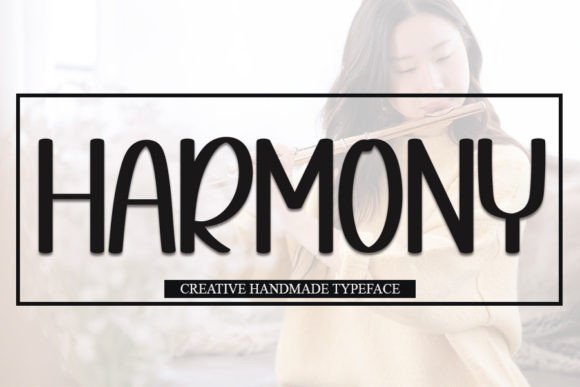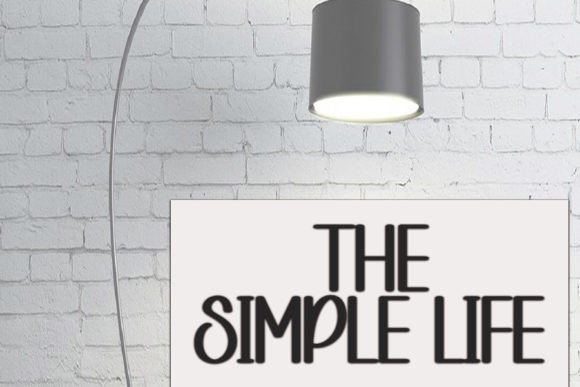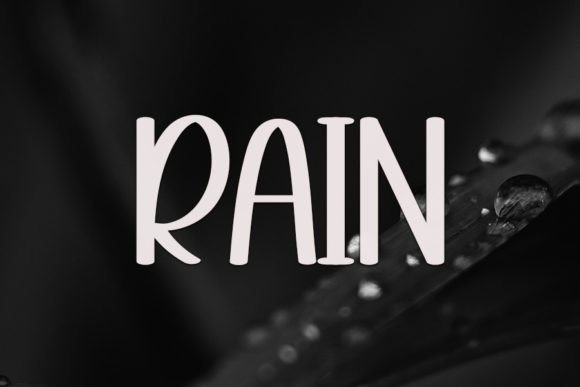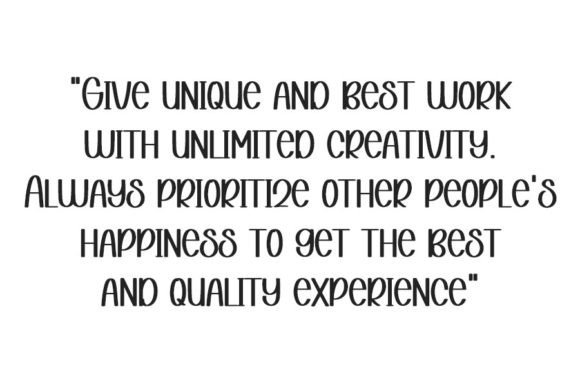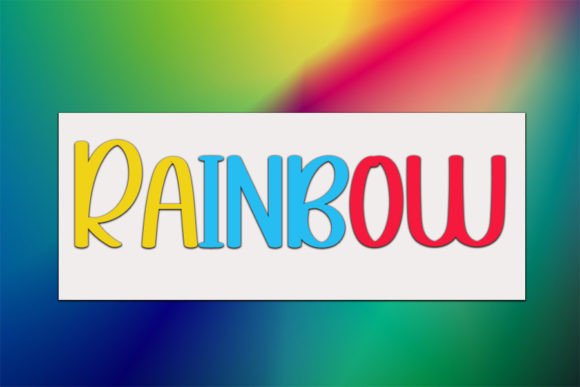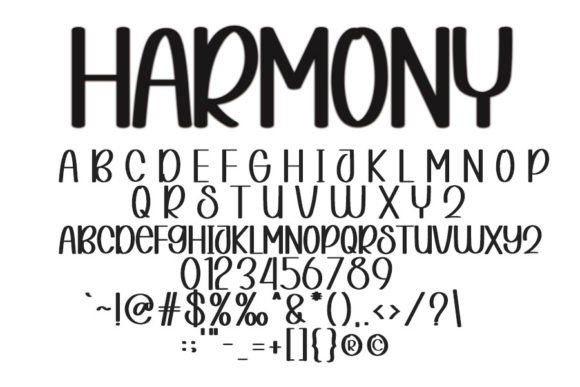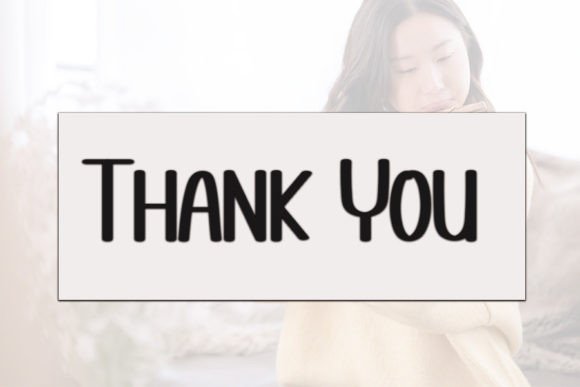
Harmony
Harmony Font: Elegant & Versatile Typeface for Business Growth
Elevate your brand with Harmony, a masterfully crafted font that blends timeless elegance with modern versatility. This PUA-encoded typeface delivers exceptional typography for everything from luxury business cards to stunning wedding invitations, helping you make the perfect impression every time.
Why Harmony Stands Out
• Premium Design: Exudes professionalism and style
• PUA Encoding: Full access to 750+ glyphs and swashes
• Universal Appeal: Perfect for print and digital media
• Brand Enhancement: Elevates customer perception instantly
Professional Applications
Business Essentials
Ideal for:
• Corporate logos and branding
• Product packaging design
• Professional presentations
Special Events
Perfect for:
• Wedding invitation suites
• Anniversary banners
• Birthday celebration decor
Elegance in Perfect Harmony
Designer Tip: Use alternate glyphs to create unique wordmarks that stand out.
Perfect Pairings
1. Modern Contrast: with Montserrat
2. Classic Elegance: with Garamond
3. Minimalist Balance: with Avenir Next